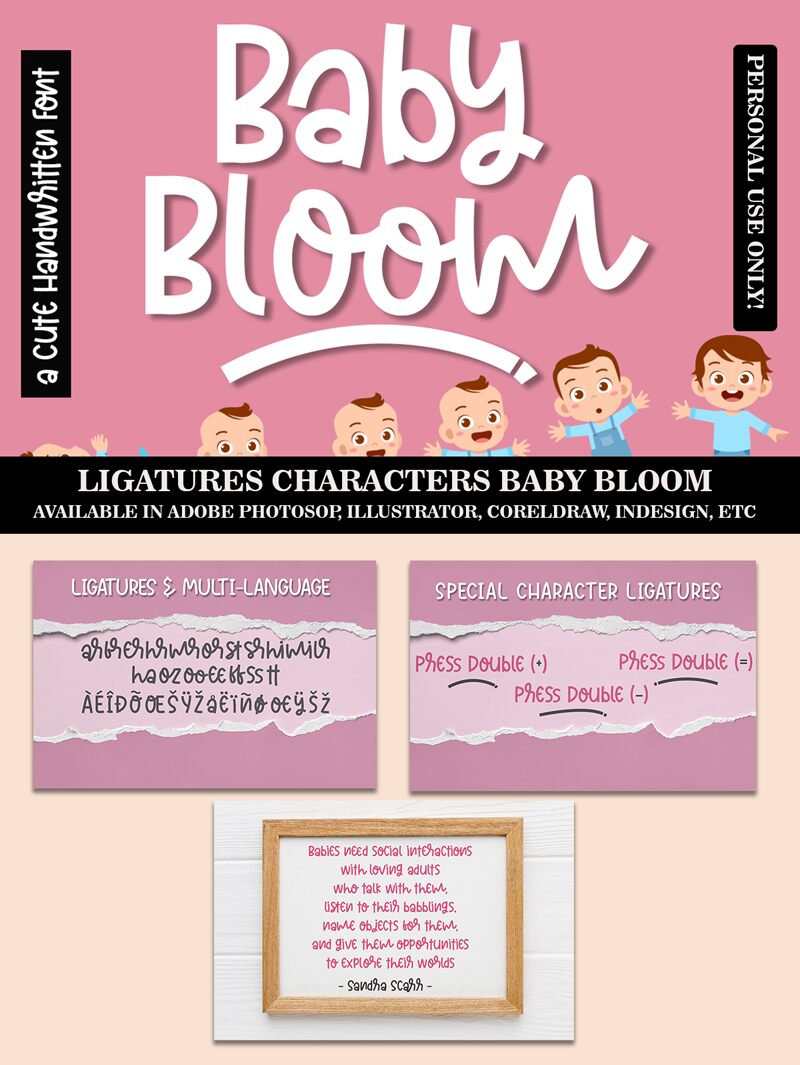
Baby Bloom font by Haksen Studio is a cartoon display typeface with a whimsical, youthful, and modern style. Its casual aesthetic gives it artistic flair while staying clean and easily readable. This is reflected through its balanced letter design with rounded edges, which are both unusual and catchy to the eye.
The free cartoon display font will fit seamlessly in your animated film projects, gaming interfaces, headline creation for books or magazines, posters, logos and branding designs for companies or events alike. It’ll also be highly effective when used on websites and apps in combination with graphics and photographs.